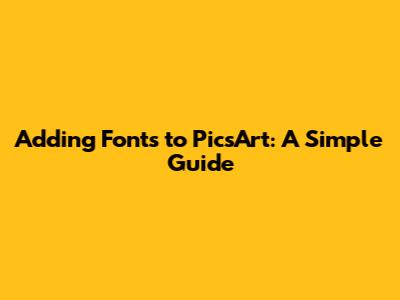
- Pairing Fonts: Don't just pick one font and use it everywhere. Experiment with font combinations! Find fonts that complement each other – a bold, modern headline font with a clean, easy-to-read body font. Sites like FontPair can help you find great pairings.
- Font Size and Hierarchy: Use different font sizes to create visual hierarchy. Make your most important text larger and bolder to draw the viewer's eye. Smaller text can be used for secondary information or details.
- Color and Contrast: Choose font colors that contrast well with your background. Ensure your text is readable and doesn't blend in. Consider using shadows or outlines to make your text stand out.
- Text Placement: Think about where you place your text. Don't overcrowd the image. Experiment with different positions and alignments to find what looks best.
- Spacing: Pay attention to line spacing (the space between lines of text) and letter spacing (the space between letters). Adjust these settings to improve readability and visual appeal.
- Layering: Get creative with layering! Add text on top of images, behind other elements, or even partially obscured by objects. Experiment to see what works.
Hey there, creative folks! Ever wondered how to add fonts to PicsArt and spice up your images with some cool typography? You're in luck! This guide will walk you through the process, making it super easy to add custom fonts and elevate your photo editing game. Whether you're a seasoned PicsArt user or just starting, adding fonts is a fantastic way to personalize your creations, making them pop with style and personality. Let's dive in and unlock the secrets to adding those awesome fonts!
Understanding PicsArt and Its Font Capabilities
Before we jump into the nitty-gritty of adding fonts, let's chat about PicsArt itself. PicsArt is a powerhouse of photo editing, offering tons of features to make your pictures look amazing. From basic adjustments to artistic filters and drawing tools, it's got a little something for everyone. And, of course, a crucial part of image editing is the ability to add text, which is where fonts come in. PicsArt has a good selection of built-in fonts, but we all know, variety is the spice of life, right? That's why being able to add your own fonts opens up a whole new world of creative possibilities. The platform allows for the use of custom fonts, though the process might not be immediately obvious. You'll soon see how you can get around the limitations of the default font library and truly make your images stand out. By understanding the platform's features, you're better equipped to harness its full creative potential.
Now, the native fonts that come with PicsArt are perfectly functional. They cover a range of styles, from simple and clean to a bit more decorative. However, they can sometimes feel limiting, especially if you have a specific aesthetic in mind or want to match a particular brand style. This is where your custom fonts enter the scene! Think of it like this: your imagination is the artist, and the fonts are your paintbrushes. The more brushes (fonts) you have, the more expressive and unique your artwork becomes. With custom fonts, you can reflect your unique personality, convey a specific mood or message, and truly make your designs your own. From elegant scripts to bold, modern typefaces, the possibilities are endless. And trust me, it's easier than you think to get started. By using this method, your PicsArt creations can become as unique as you are.
Adding custom fonts to PicsArt isn't just about aesthetics; it's about control. It's about having the power to shape your message exactly how you envision it. It's about going beyond the limitations of the default options and expressing your creativity in ways that are truly, uniquely you. Remember, PicsArt is a platform for your ideas to become reality, and with custom fonts, you get the opportunity to expand the breadth of possibilities within the platform. The more you explore the options available to you, the more likely you will be to discover tools and techniques you can use to add a personal touch to your edits, no matter the project.
Finding and Downloading Fonts
Alright, let's get down to the fun part: finding and downloading fonts. There are tons of websites out there offering free and premium fonts, so you'll have no trouble finding something that fits your style. Here’s a list of the usual suspects where you can find great fonts:
When you are downloading fonts, there are a few things to keep in mind, and guys, this is really important. Firstly, make sure the font is licensed for your intended use. Most free fonts are fine for personal projects, but if you're using them for commercial purposes (like designing for a client or selling merchandise), you'll want to double-check the license. Also, pay attention to the file format. You'll typically find fonts in .ttf (TrueType Font) or .otf (OpenType Font) formats. These are both compatible with PicsArt, so you're good to go. Lastly, always download fonts from reputable sources to avoid any malware or security risks.
Now, how to actually download fonts? It's generally a straightforward process. Go to a website like Google Fonts, browse the selection, and click on the "Download family" button. This will download a zipped file containing the font files. You'll need to unzip the file to access the font files. Be sure to organize your fonts in a folder for easy access when we get to the PicsArt part. Now you're ready for the exciting part, which is how to actually add the fonts to PicsArt. Before we get to that, let's quickly go over some best practices. Organize fonts into easy-to-find folders. Always check the license to ensure the usage is appropriate for you. And lastly, always download fonts from safe and reputable sources. This will help make the process safer and allow you to stay secure while exploring the variety of available fonts.
Adding Fonts to PicsArt on Your Device
Okay, here comes the step-by-step guide on how to add fonts to PicsArt! Unfortunately, PicsArt itself doesn't have a direct way to import fonts. So, we'll need a little workaround. The method depends on whether you're using an Android or an iOS device, so let's break it down:
For Android Users
For iOS Users
Troubleshooting Common Issues
Sometimes, things don't go as planned, even when we follow all the steps. Here are a few troubleshooting tips if you run into problems while trying to add fonts to PicsArt:
These tips can resolve most common issues, allowing you to get back to creating with your customized fonts. Remember to stay patient and work your way through these solutions. With a little effort, you should be able to add your desired fonts to PicsArt and add some custom touches to your image edits.
Tips and Tricks for Using Fonts in PicsArt
Now that you know how to add fonts to PicsArt, let's explore some tips and tricks to make your typography game even stronger. This will take your image editing to the next level.
These tips will help you take your text additions from basic to beautiful. Remember, guys, typography is a form of art. Play around with it, get creative, and enjoy the process. Explore these tips and tricks to get the most out of your PicsArt edits.
Conclusion: Unleash Your Creativity with Custom Fonts
So there you have it, folks! Now you know how to add fonts to PicsArt and elevate your photo editing. It's really not that hard, right? With a little effort, you can transform your images with beautiful typography and add your personal touch. From finding and downloading fonts to the installation process, this guide should have given you a solid foundation for adding fonts to your PicsArt creations. Don't be afraid to experiment, try different fonts, and let your creativity run wild! PicsArt, combined with your favorite custom fonts, is a powerful tool for visual storytelling. Now go out there and create something amazing!